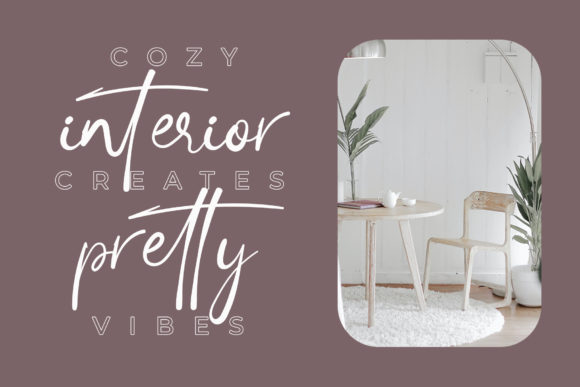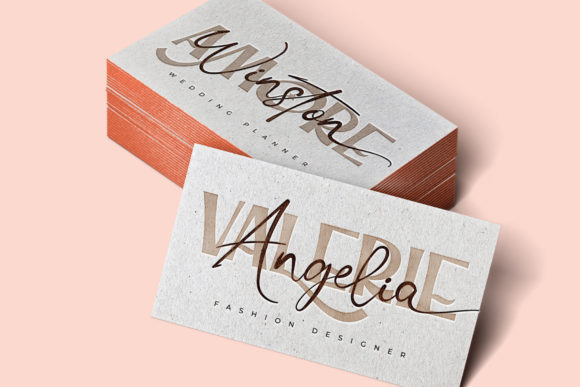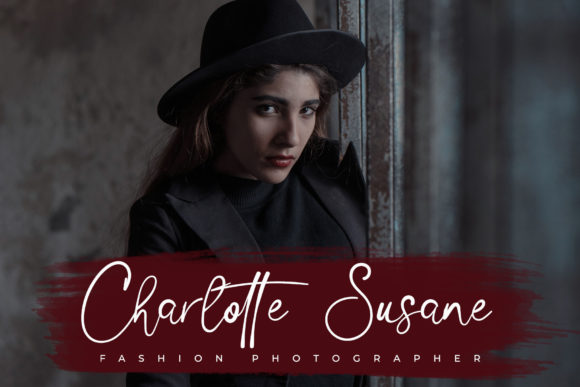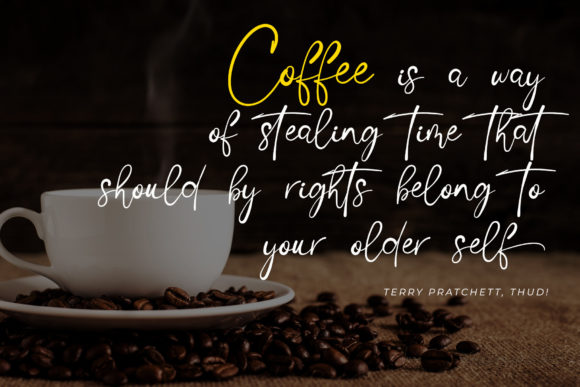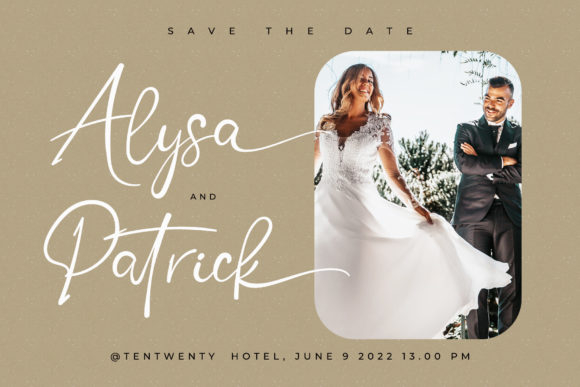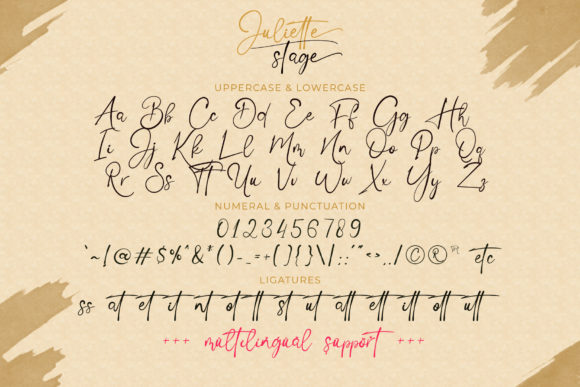
Introduction to Jinstage Font
Remember that moment when you’re brainstorming a new design concept and the perfect font just slips your mind? It’s frustrating, but it’s also an opportunity to discover something new and exciting. For designers, finding the right font can make all the difference in bringing a creative project to life.
Enter the Jinstage Font, a stylish and thin lettered script font that adds a touch of luxury to any design project. With its high-quality design, this font is a valuable resource for designers looking to elevate their work. Whether you’re working on a project with a transparent background or a complex layout, the Jinstage Font is sure to impress.
One of the best things about the Jinstage Font is that it’s PUA encoded, making it easy to access all glyphs and swashes. This means you can get creative with your design without any hassle, and take advantage of the font’s full potential.
Key Features of Jinstage Font
- High-quality design resource ideal for creative projects, offering a unique aesthetic.
- Designed to be versatile, suitable for a wide range of creative applications, from branding to digital art.
- Features a clean and modern design, perfect for designers seeking a high-quality font for their projects.
Honest Review: Jinstage Font
I recently came across the Jinstage Font while searching for a high quality design resource to enhance a creative project. The font caught my attention with its modern and sleek aesthetic, making it an excellent choice for any design enthusiast.
- ✨ The Jinstage Font has a transparent background, allowing for seamless integration with any design element.
- ✨ The font is highly customizable, making it perfect for personal and professional projects.
- ⚠️ The font may not be suitable for older systems or browsers, due to its modern design.
- ⚠️ Some designers may find the font too minimalist, lacking in character and personality.
Overall, I’m impressed with the Jinstage Font. Its high quality and versatility make it an excellent addition to any design resource collection. While it may have some limitations, it’s a great option for designers looking for a modern and sleek font for their creative project.
The Jinstage Font is perfect for various creative projects, including logos, brochures, business cards, and social media graphics. Its high-quality design and transparent background make it a great design resource for designers of all levels.
Tips for Getting the Most Out of Jinstage Font